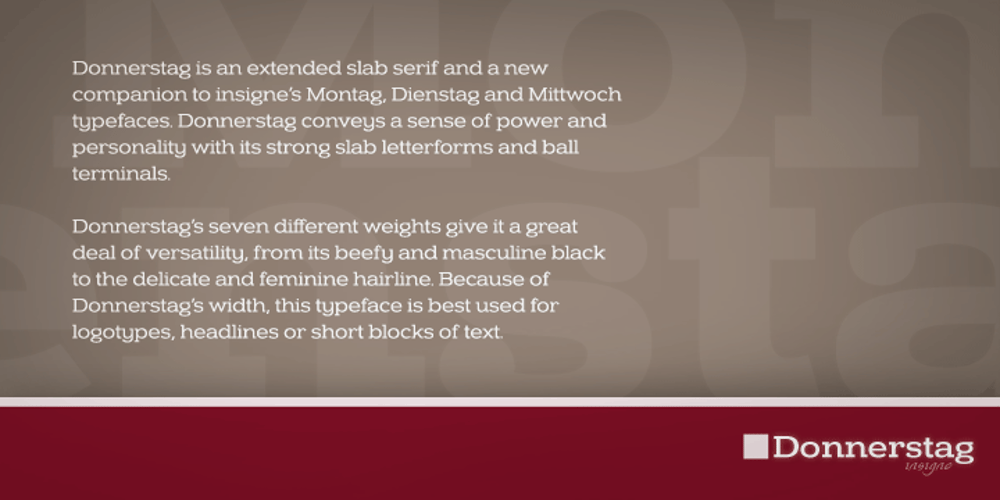
Donnerstag
Donnerstag font
Donnerstag Font Family was designed by Jeremy Dooley and published by insigne. Donnerstag contains 14 styles and family package options. Donnerstag is an extended slab serif and a new companion to insigne’s Montag, Dienstag and Mittwoch typefaces. Donnerstag conveys power and personality with its strong slab letterforms and ball terminals. Donnerstag’s seven different weights give it a great deal of versatility, from its beefy and masculine black weight to the delicate and feminine hairline. Because of Donnerstag’s width, this typeface is best used for logotypes, headlines or short blocks of text. Donnerstag includes many useful OpenType features, including a set of upright italic swash alternates, ligatures, small caps, fractions and old style figures, alternates for the ball terminals and simplified characters for titling. OpenType-capable applications such as the Adobe suite or Quark can take full advantage of automatically replacing ligatures and alternates. This family also includes the glyphs to support a wide range of latin based languages. For complementary companions, be sure to check out the rest of the typeface super family, also available from insigne.